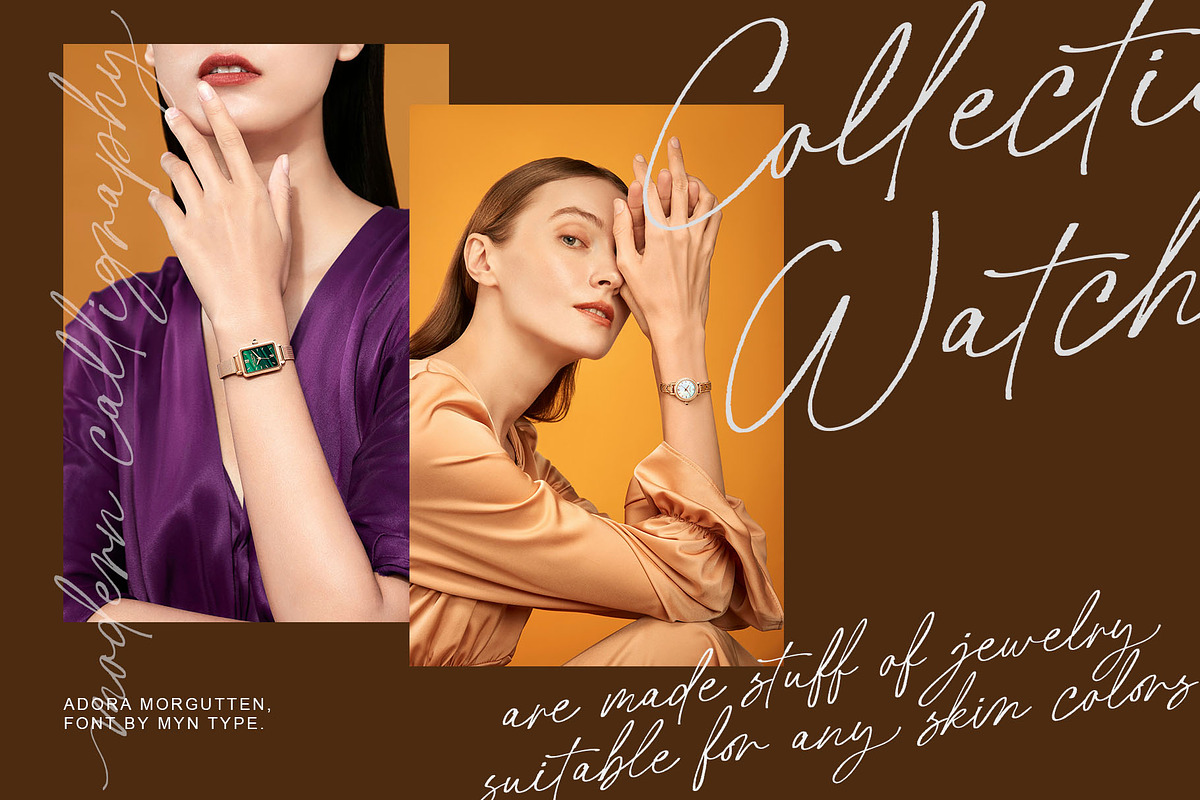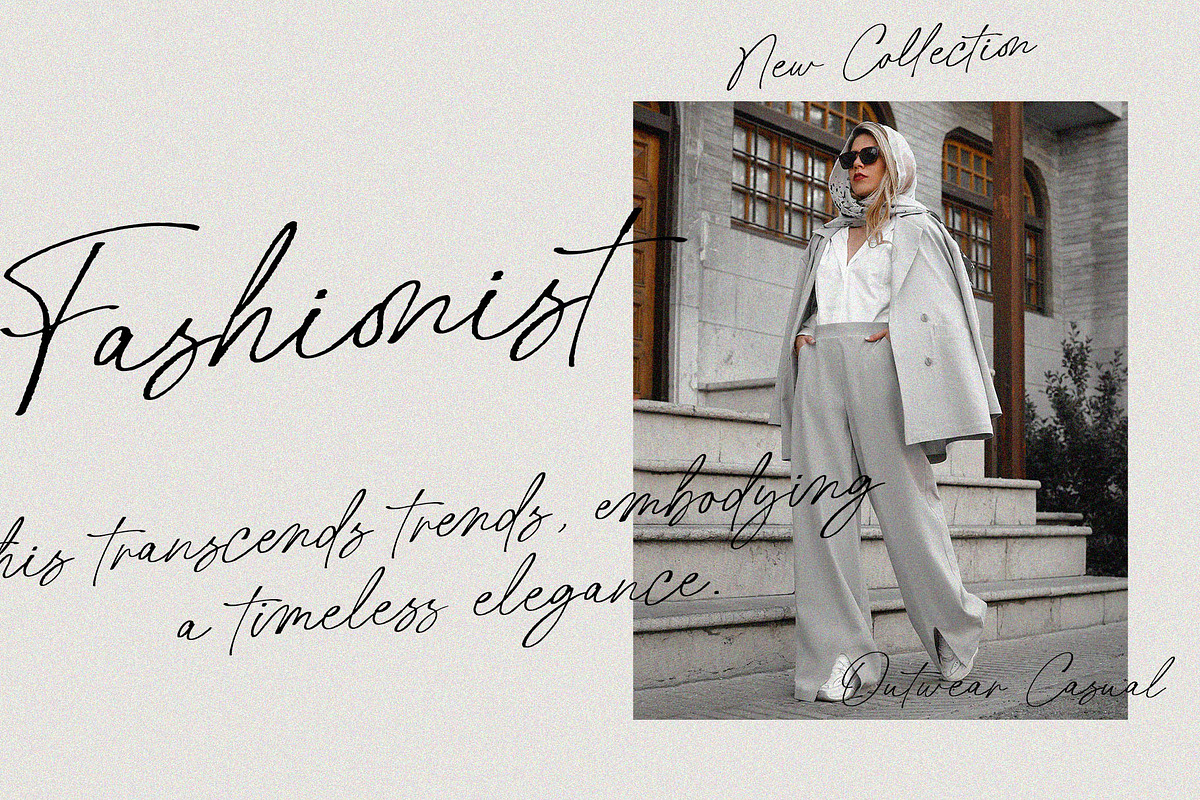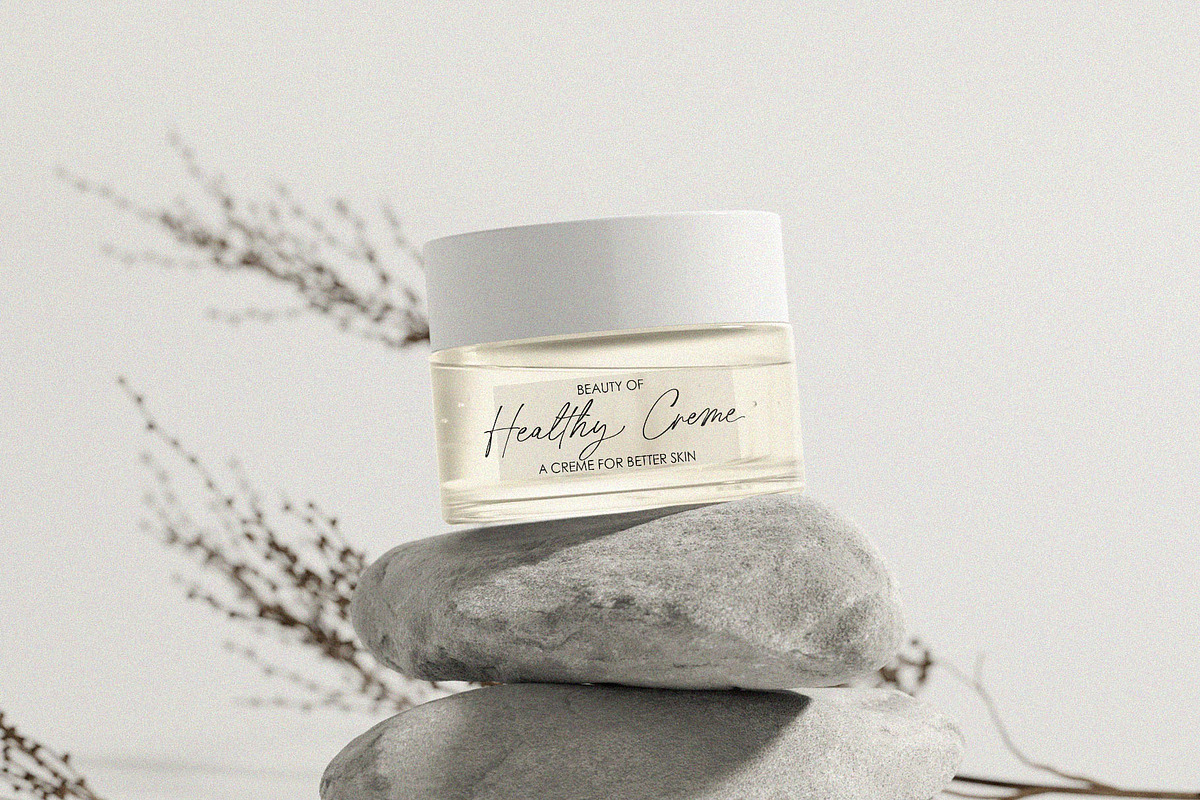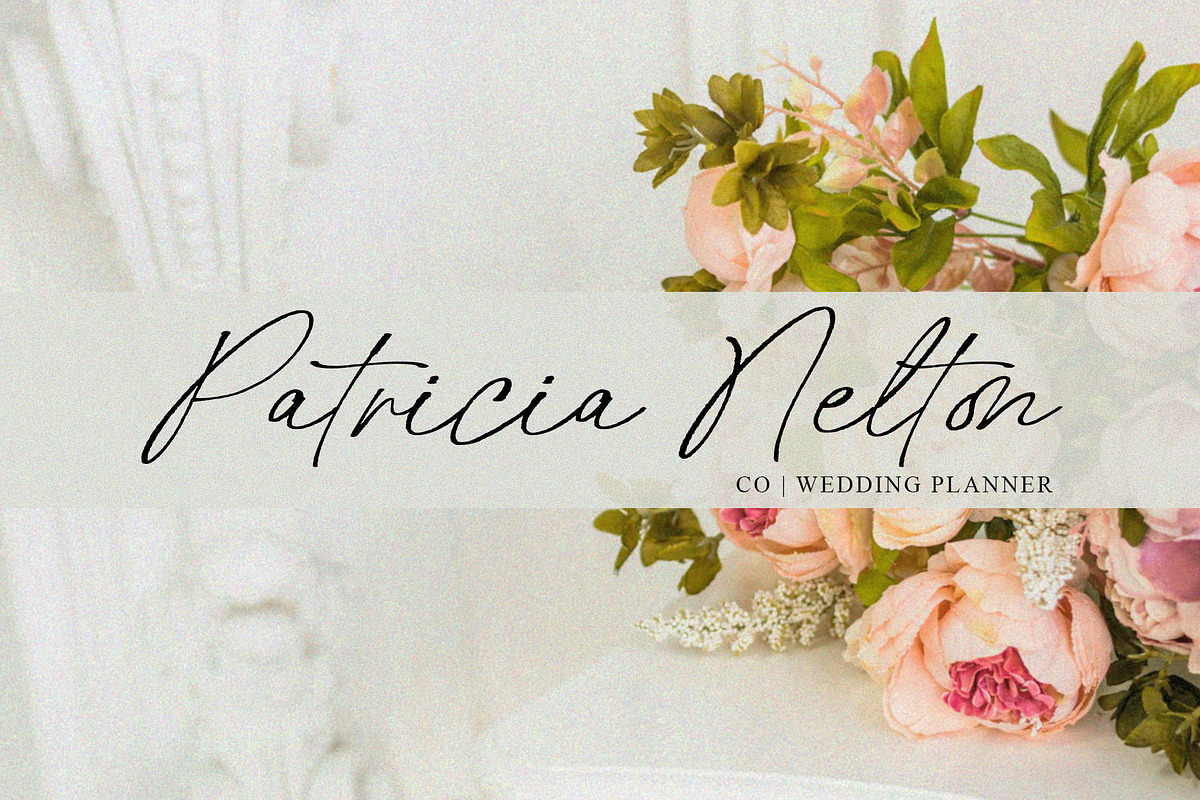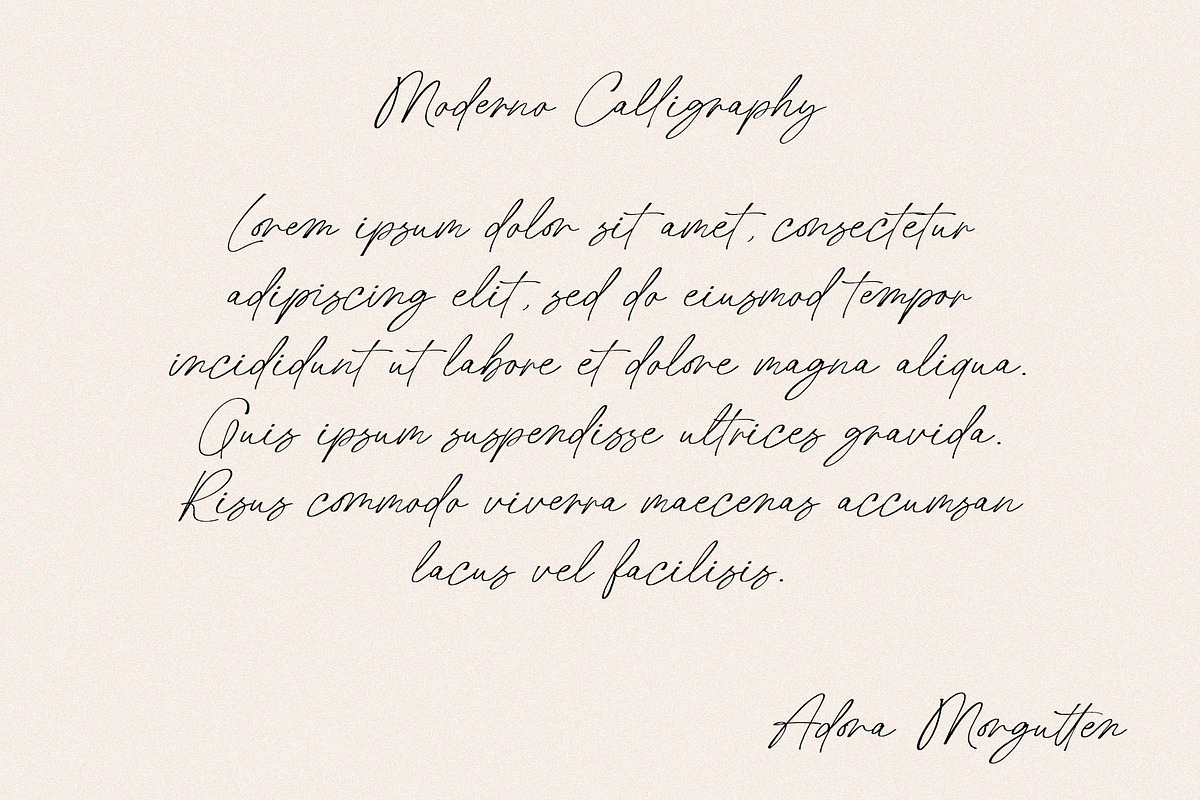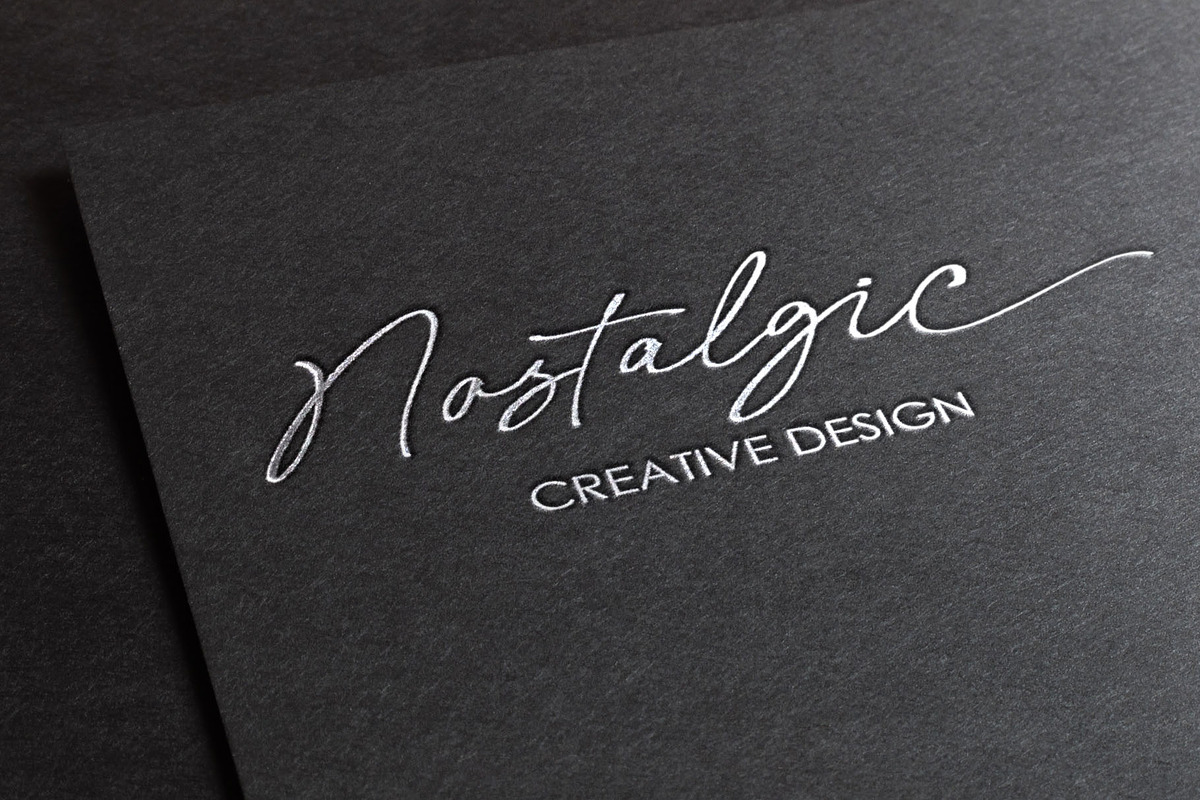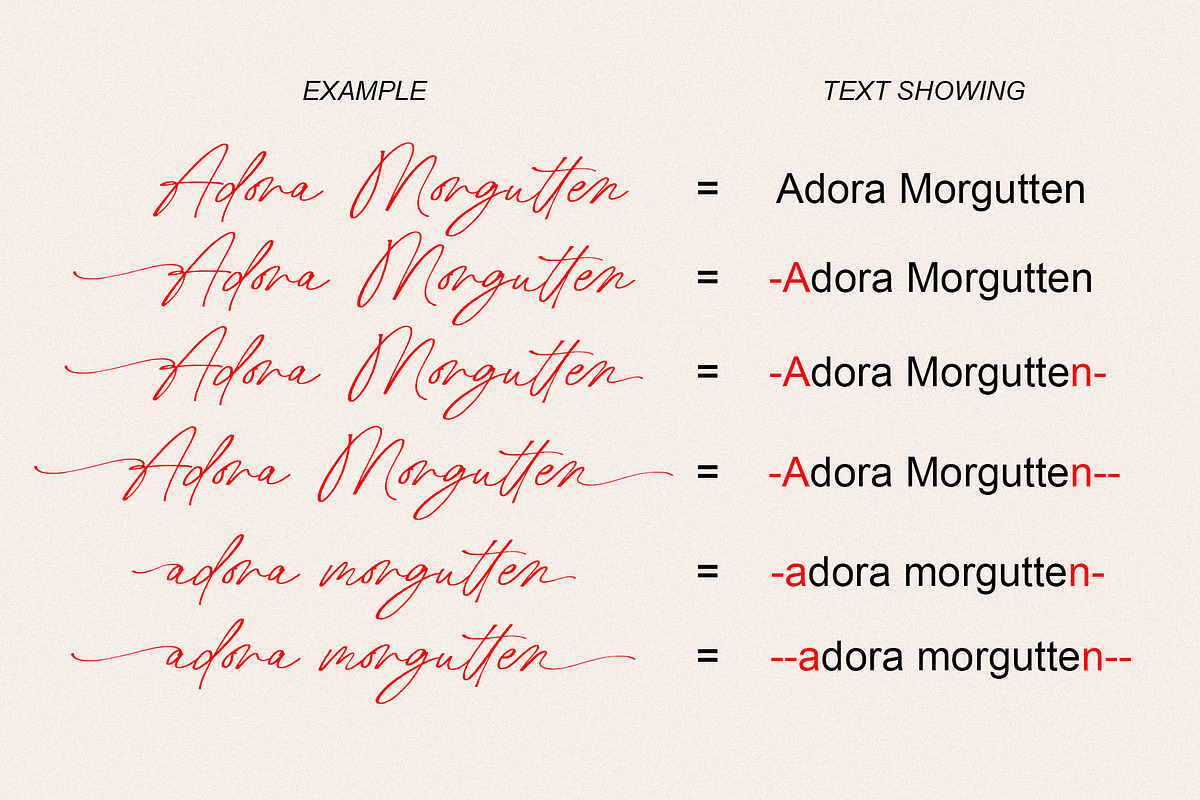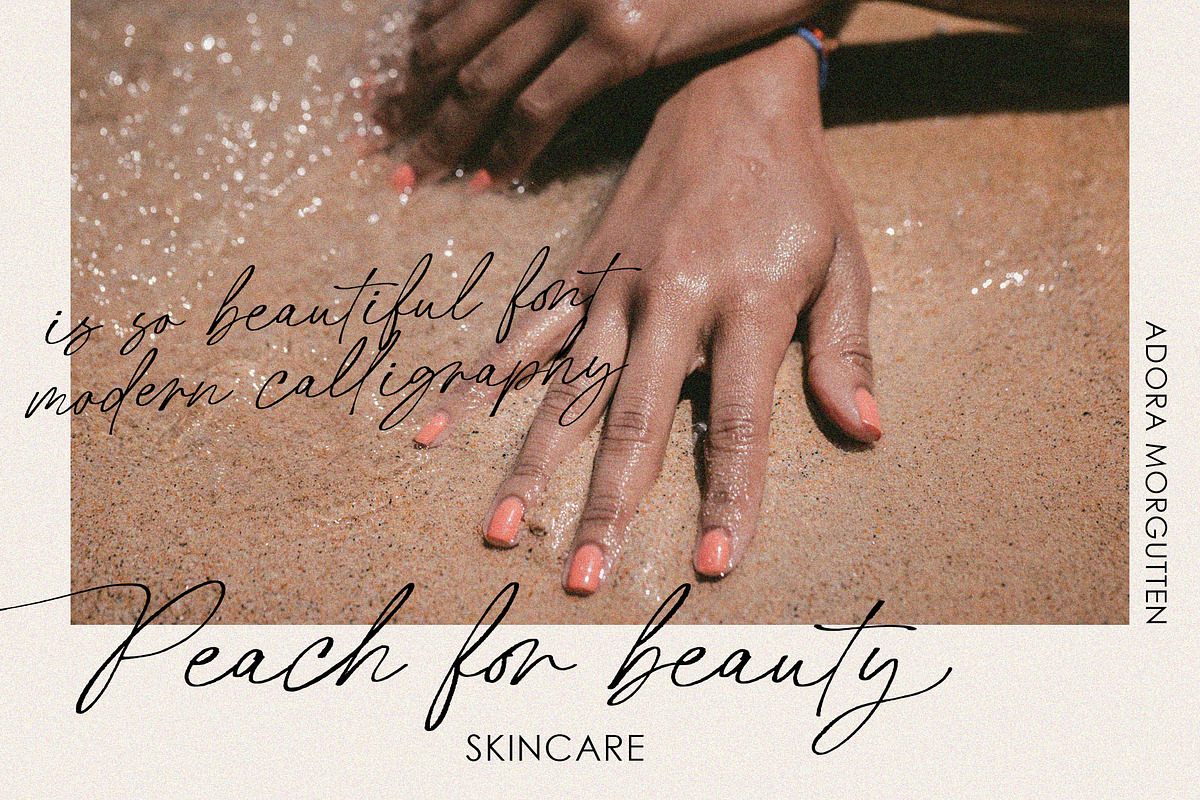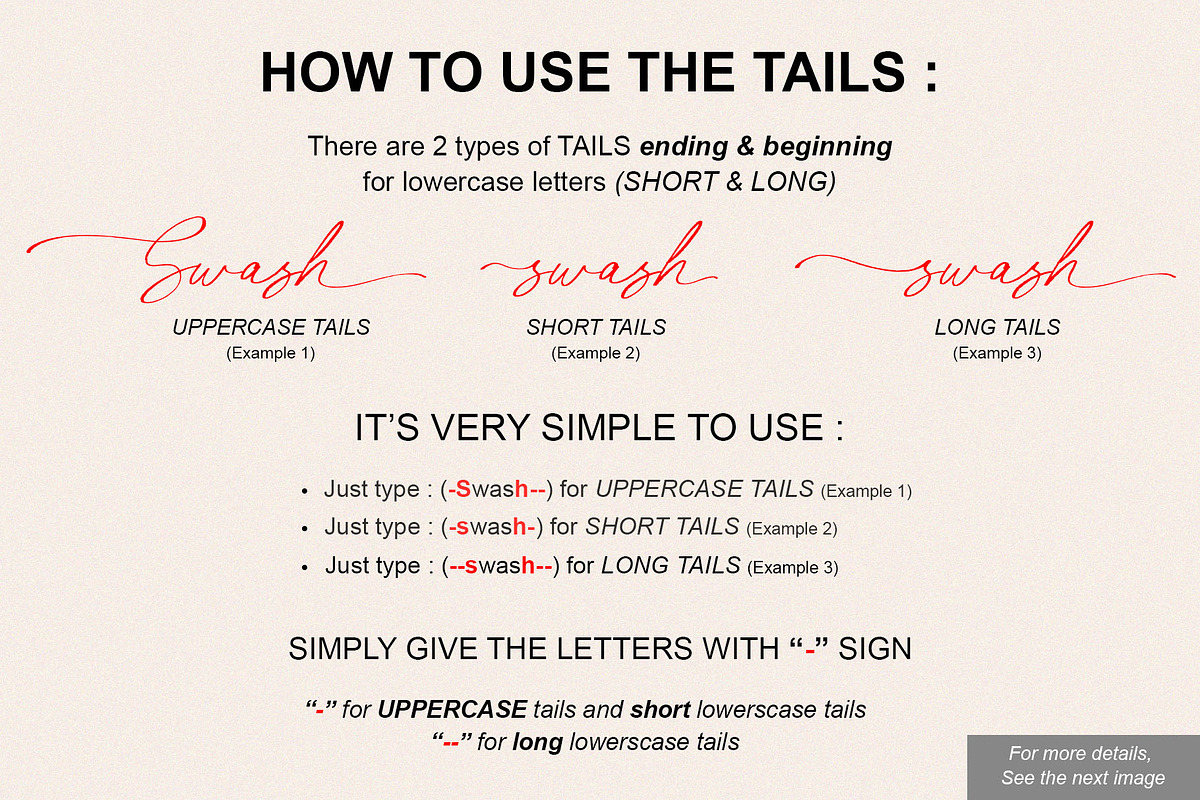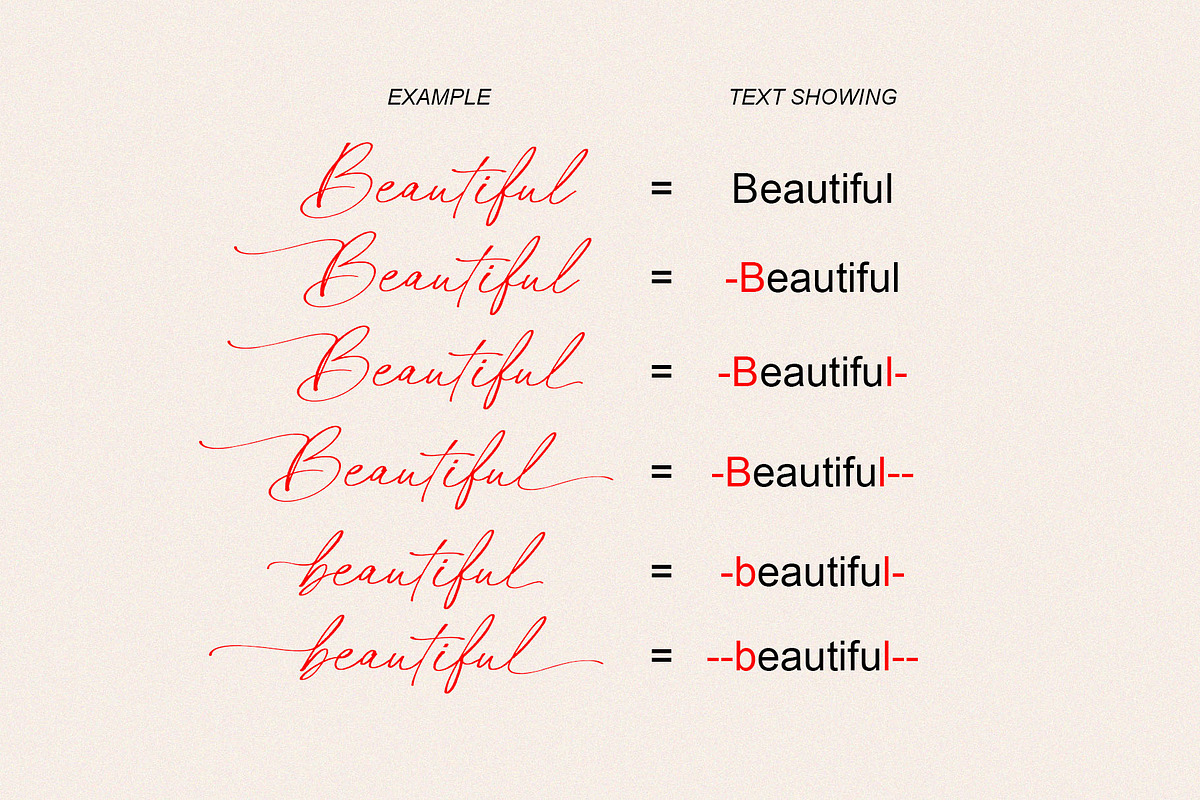
Meet the Adora Morgutten!
An contemporary font masterpiece that seamlessly marries the fluidity of traditional calligraphy with a sleek and modern aesthetic. Characterized by pen ink expressive strokes, this font exudes a dynamic energy that captures the essence of handcrafted artistry.
Adora Morgutten is perfect for creating calligraphy logos, invitations, display product, wedding design, social media graphics, and other design elements that require a contemporary and handcrafted touch.
HOW TO USE THE SWASH :
- just add "-" for UPPERCASE tails and short lowercase tails
- and "--" for long lowercase tails